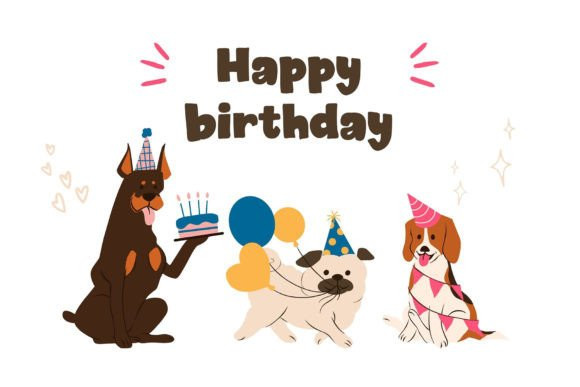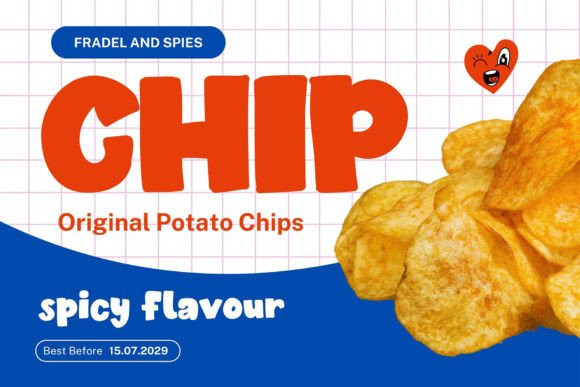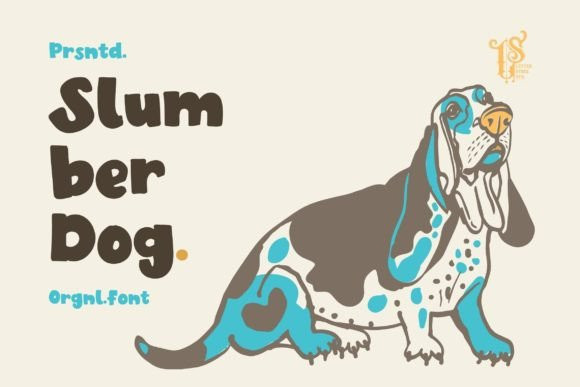
Slumber Dog Font
Slumber Dog Font a font crafted with original hand-drawn artistry and adorned with a bold decorative style. Perfect for adding a touch of sophistication to your designs, this font is ideal for posters, headlines, and branding materials, infusing them with personality and charm.
Each character in Slumber Dog is meticulously hand-drawn, ensuring a unique and authentic appearance that commands attention. Elevate your designs with the bold and decorative style of Slumber Dog, making a statement with every letter and word.